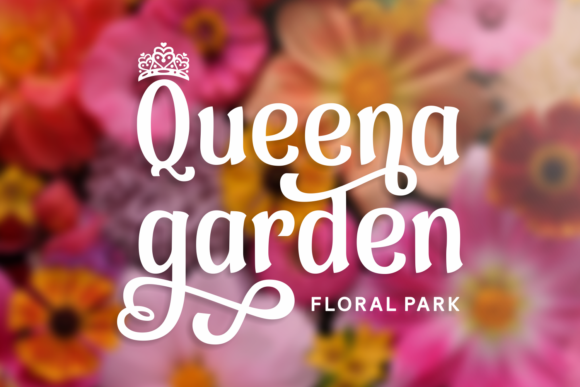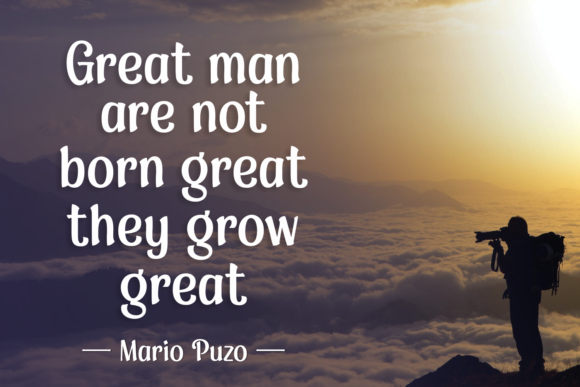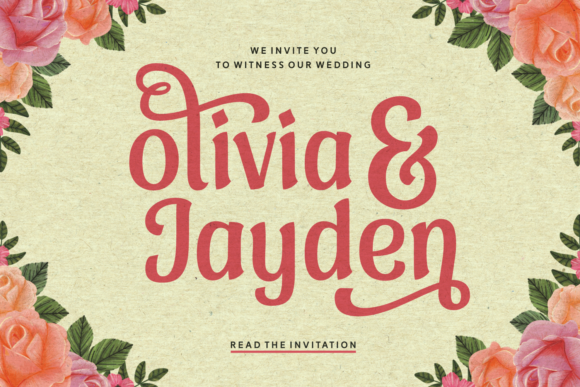
The Perfect Touch of Luxury: Beloy Queen Font
You’ve spent hours pouring over design concepts, tweaking every detail until it’s just right. And then, it hits you – that one element that takes your design from ordinary to extraordinary. For many designers, that moment comes when they discover the perfect font to bring their vision to life.
Enter the Beloy Queen Font, a majestic display font that adds a touch of luxury to any design project. With its intricate details and PUA encoding, this font is a game-changer for designers looking to elevate their work. Whether you’re creating a high-end brochure, a luxury brand logo, or a sophisticated website, the Beloy Queen Font is the perfect addition to your toolkit.
With the Beloy Queen Font, you’ll be able to access a wide range of glyphs and ligatures with ease, giving you the creative freedom to push the boundaries of your design. Say goodbye to ordinary designs and hello to a world of luxury and sophistication with the Beloy Queen Font.
Key Features of Beloy Queen Font
- Font Family: Beloy Queen
- Unique Characteristics: Elegant, cursive script with intricate details and subtle flair, making it suitable for wedding invitations, formal events, and luxury branding
Beloy Queen Font Review
I recently had the chance to work with the Beloy Queen font, and I must say it’s a unique and intriguing choice. ✨ The font’s elegant, cursive script makes it perfect for creating a sophisticated and luxurious atmosphere in designs.
One of the things I appreciate about Beloy Queen is its high level of customizability. ✨ The font is available in a range of weights, from light to bold, which allows for a high degree of flexibility in design applications. Additionally, the font’s varying line widths and subtle flourishes add a touch of whimsy and personality to text.
However, there are some limitations to consider. ⚠️ One of the main issues I encountered was the font’s poor readability at smaller font sizes. In some cases, the letters became difficult to distinguish from one another, which can be a problem in designs where text needs to be displayed at a small size.
- Highly customizable with multiple weights and styles
- Elegant, cursive script suitable for luxury and high-end designs
- Subtle flourishes and varying line widths add personality to text
- Poor readability at smaller font sizes
Overall, I think Beloy Queen is a great choice for designers who want to add a touch of elegance and sophistication to their work. However, it may not be the best option for designs that require clear, readable text at smaller font sizes.
The Beloy Queen Font is ideal for use in creative and artistic projects, such as:
- Editorial and publishing projects
For the best results, use the Beloy Queen Font in bold or italic styles to add emphasis and create visual interest.
For optimal readability, we recommend using Beloy Queen Font at sizes between 12pt and 24pt for body text. For headings, sizes between 24pt and 48pt are suitable. However, these are general guidelines and may vary depending on the specific design and context.